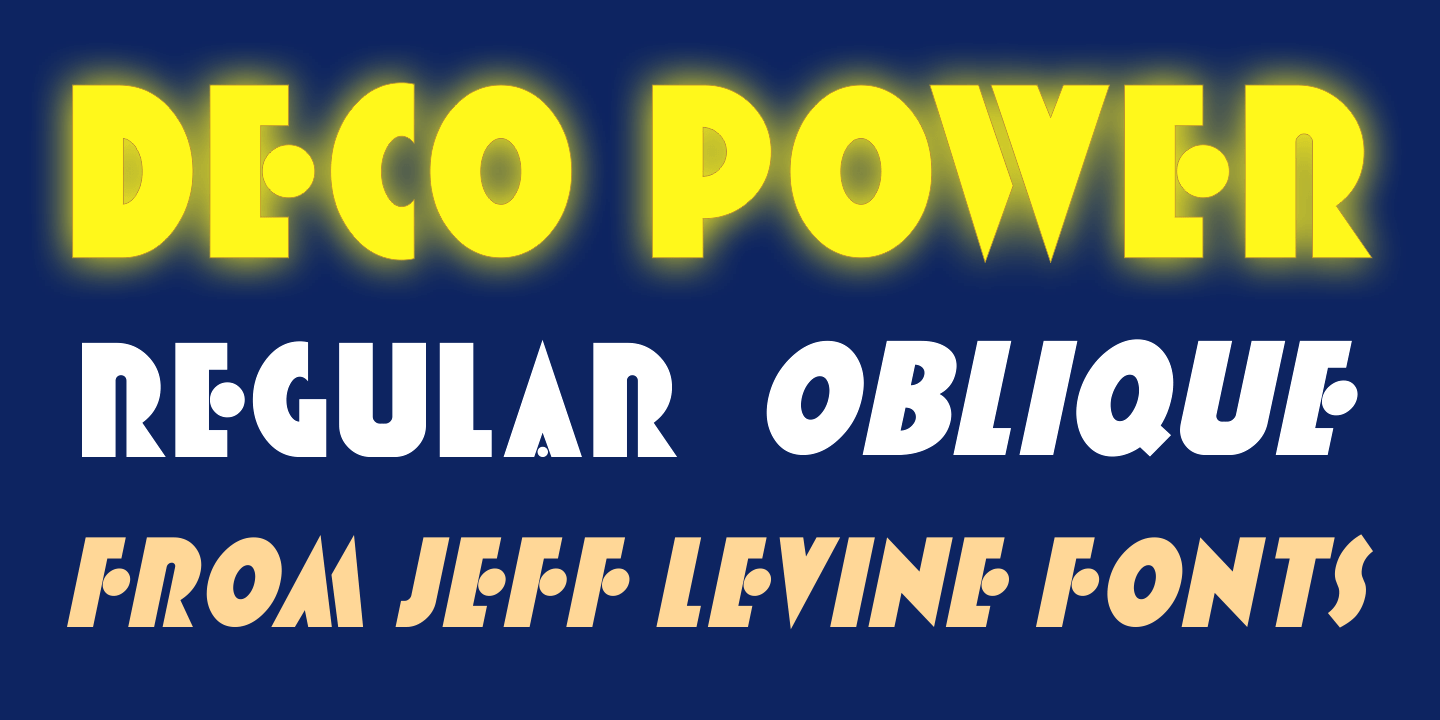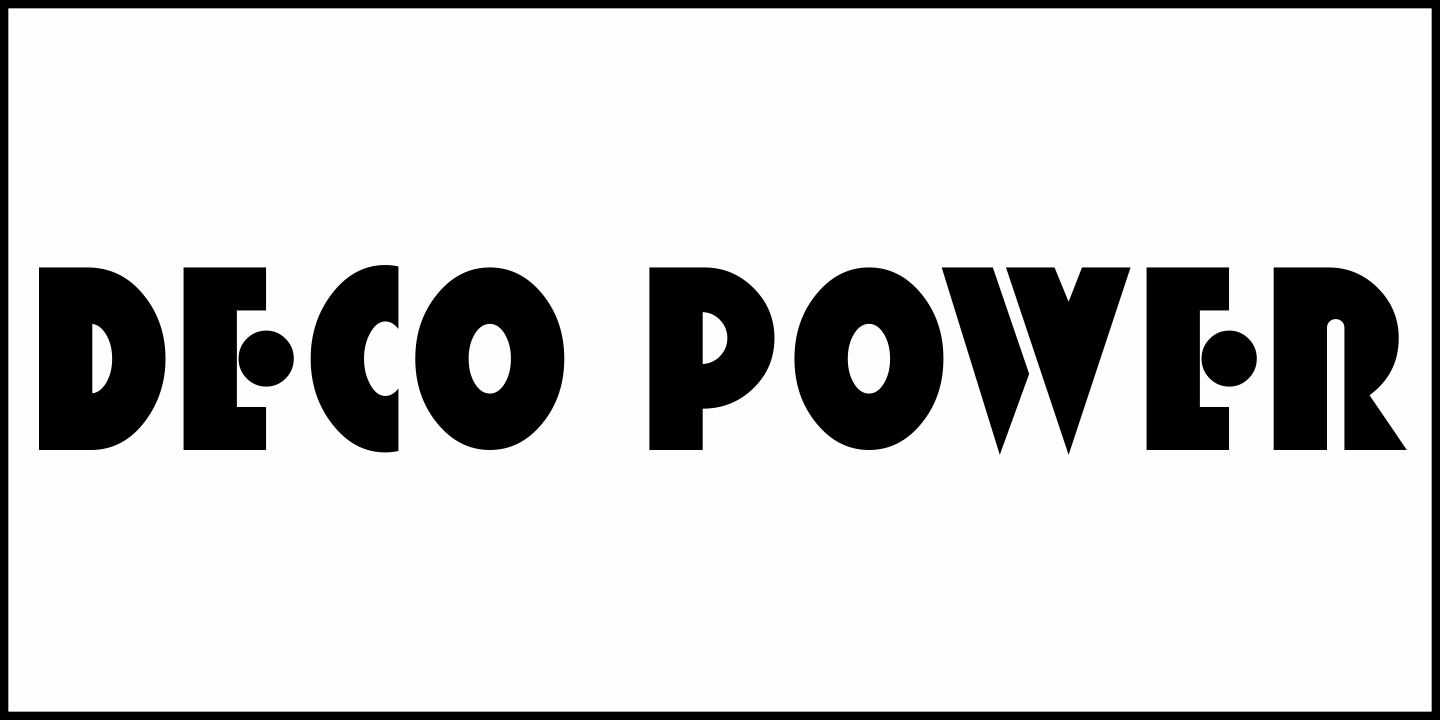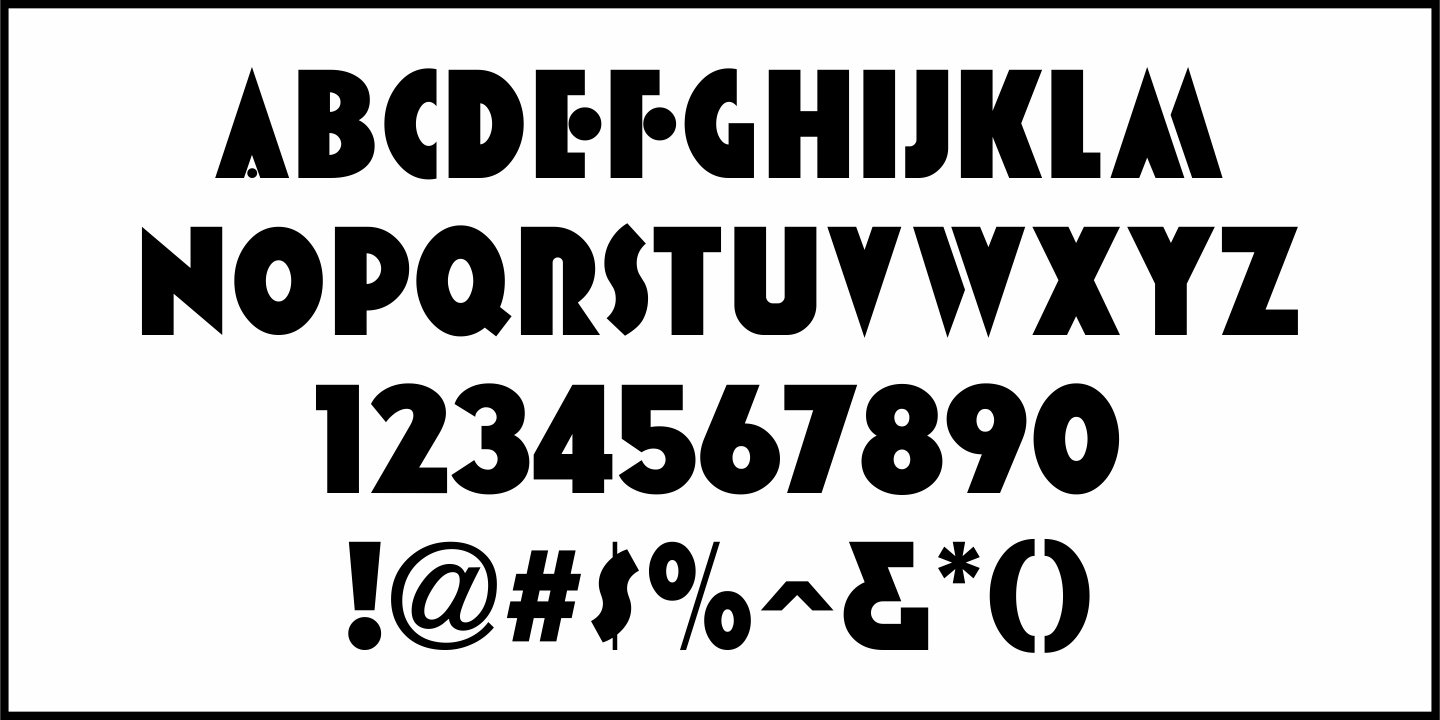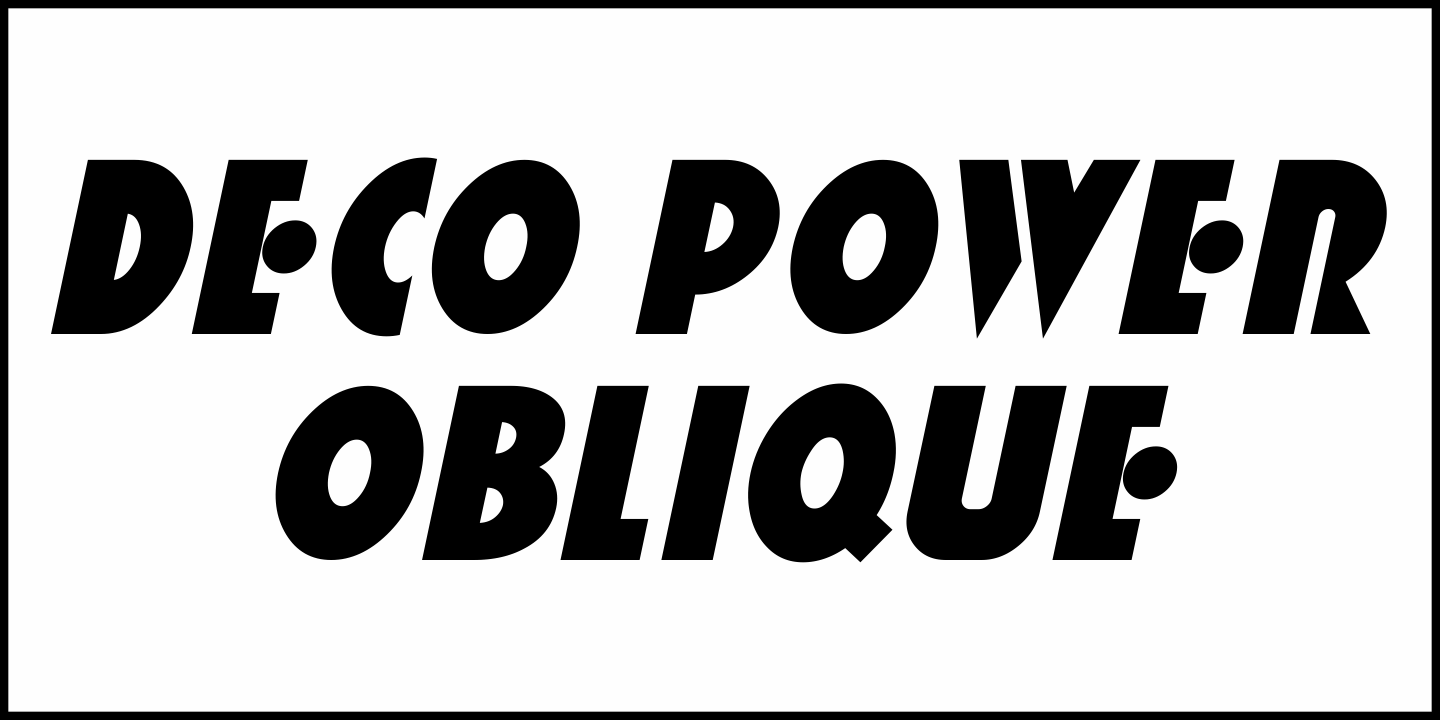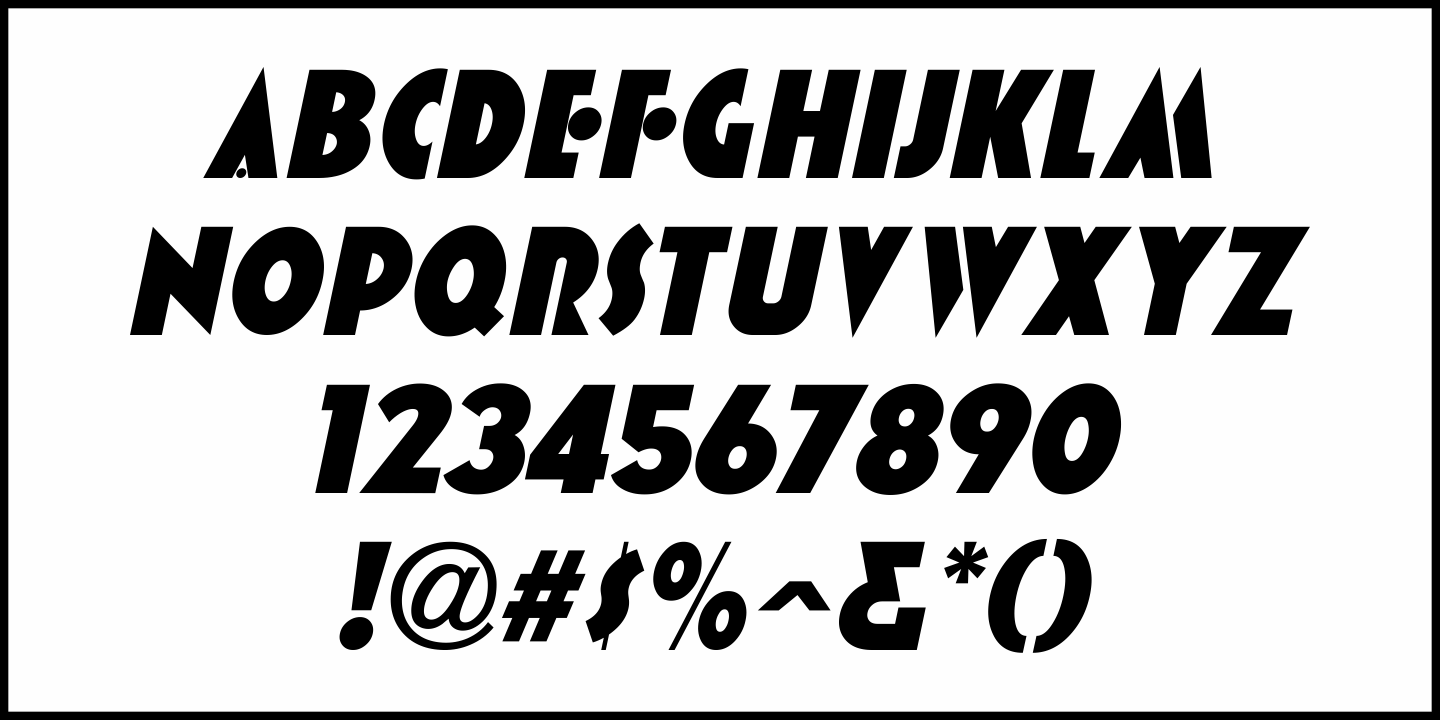
Deco Power
A June 18, 1929 issue of the Hollywood trade paper 'The Film Daily” ran an ad for a film called 'The Power House”. The film's title was hand lettered in an extra bold sans serif design with strong Art Deco influences.
This is now available digitally as Deco Power JNL in both regular and oblique versions.